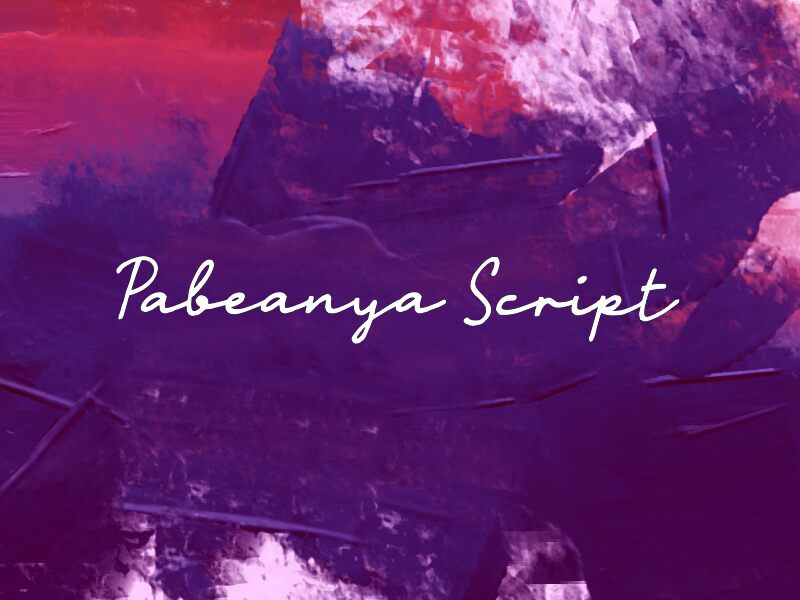
Pabeanya Script font by wep is a free handwritten font with an elegant flow. Its contemporary and inviting structure aims to offer a personal expression to your typography. In addition to being informal and dynamic, Pabeanya is pleasant to read and attention-grabbing, offering a reader-friendly experience.
This expressive typeface suits all your personal projects from greeting cards, and invitations, to posters and ads. If you’re on the hunt for a free font for book covers, magazines, branding, packaging, or social media platforms, this satisfying design is definitely a nice choice.
Pabeanya Script is a beautifully crafted font that exudes elegance and charm. This free font is ideal for adding a touch of sophistication to your designs, whether for personal projects or commercial use. With its stylish curves and unique character, Pabeanya Script stands out in any layout, making it a versatile choice for invitations, branding, and creative applications.